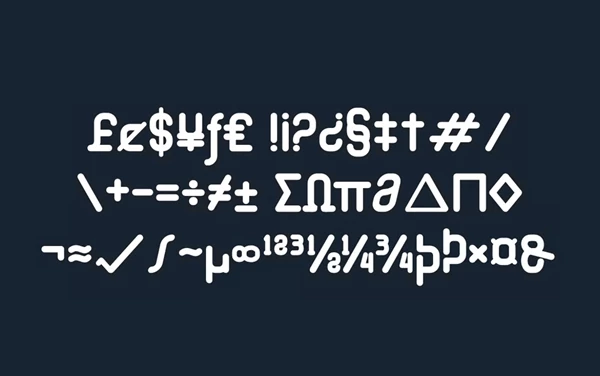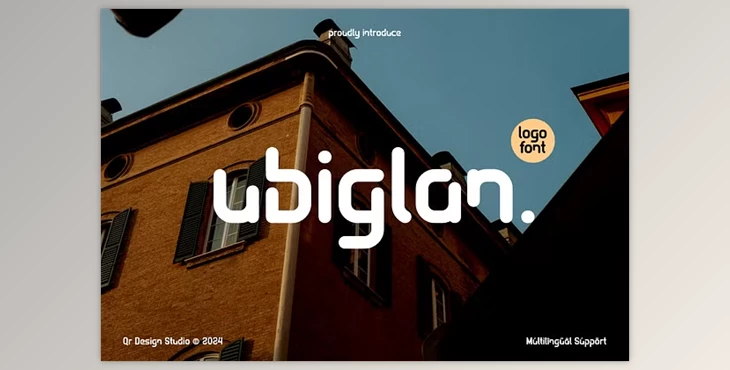
Ubiglan - Sans Modern Logo Font: Introducing Ubiglan Font, a versatile sans-serif typeface meticulously crafted for many branding projects. This font epitomizes modernity, lending itself seamlessly to various contexts such as stylish designs, posters, logos, sports branding, and more.
Included in the package are Ubiglan in .OTF, .TTF, and .WOFF formats, ensuring compatibility across different platforms and software. Ubiglan boasts a comprehensive set of features, including both uppercase and lowercase letters, ligatures, alternates, numerals, punctuations, and extensive multilingual support.
"Ubiglan - Sans Modern Logo Font" Samples:
With its clean and elegant design, Ubiglan Font stands out effortlessly in any application, offering endless possibilities for creative expression. Elevate your branding projects and make a lasting impression with the timeless appeal of Ubiglan Font.